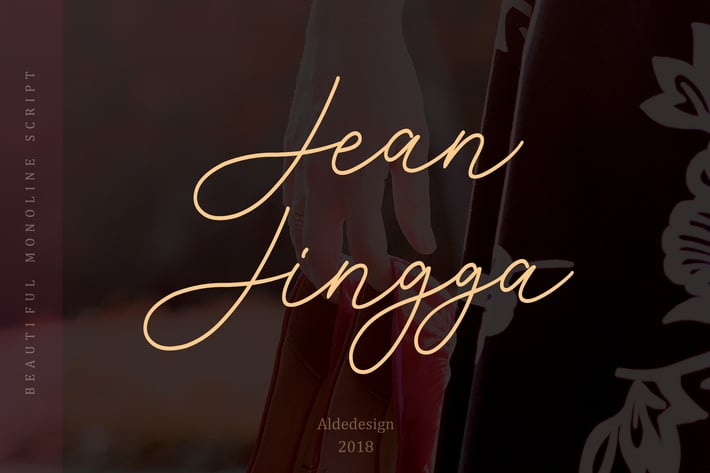
Jean Jingga - Beautiful Handwritten Styled Font
Jean Jingga is a beautiful handwritten styled font that looks natural and elegant in a wide range of design concepts.
This font is easy to use, great for signature and can be used to give your projects a modern and casual flair.
Stylish handwritten style
Beautiful Lowecase Swash/Ending Tail
Beautiful Lowecase Titling/Beginning Tail
Special Ligatures and Alternates